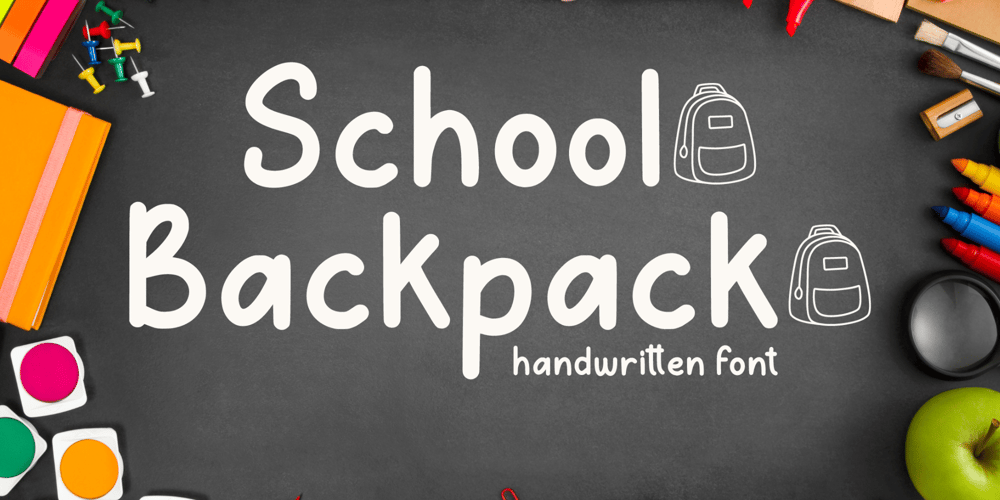
School Backpack Font Family was designed by Agung Eko Nugroho and published by AEN Creative Studio. School Backpack contains 2 styles and family package options. School Backpack is a simple handwritten font with a single line. It is casual, cute, and fun. Its playful curves and genuine charm evoke a sense of warm nostalgia, making it perfect for projects related to school designs, birthday invitations, summer designs, mug designs, crafting, stickers, sublimations, and much more.